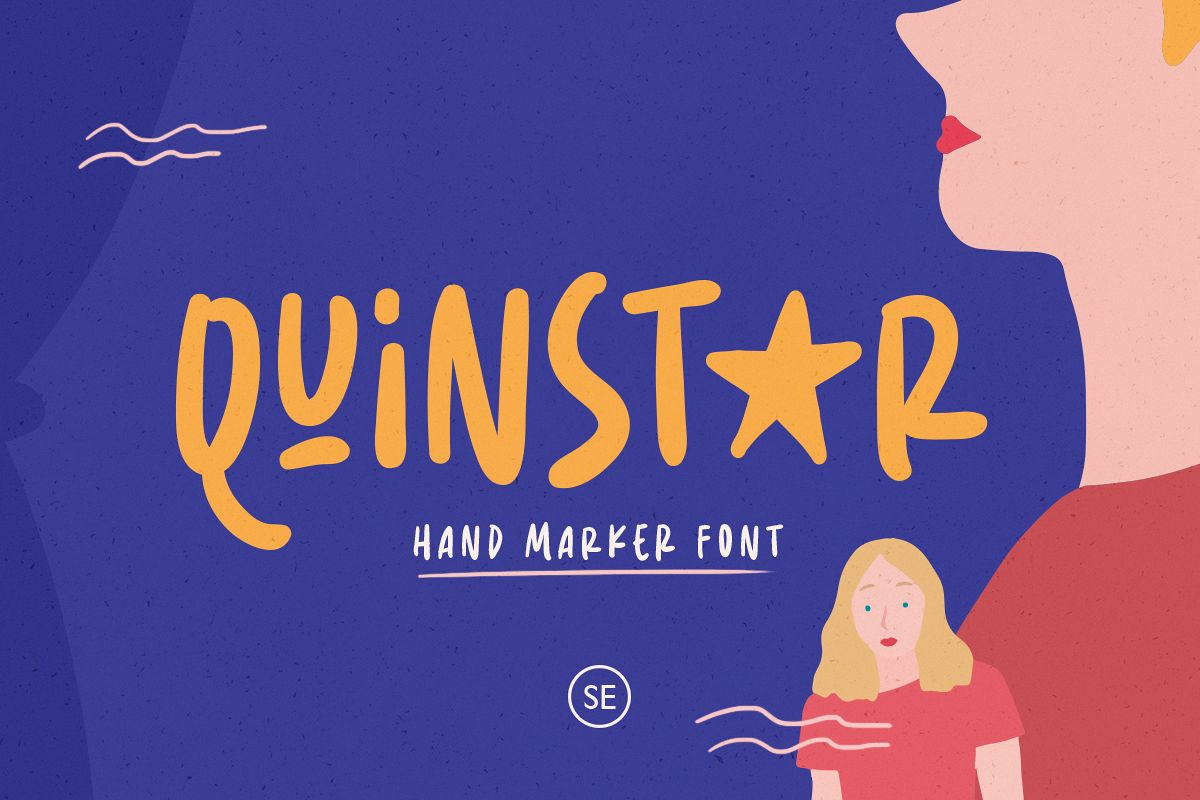
Quinstar - Hand Marker Font
Quinstar is an applicable hand marker font that contains uppercase, lowercase, number and symbol. You can use this font for any project. It's so fit for social media promotion and all.  This font support multi language!